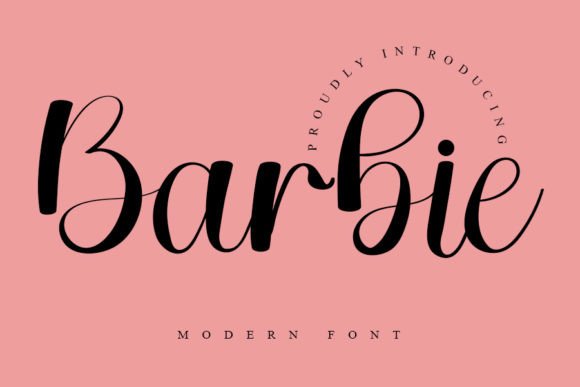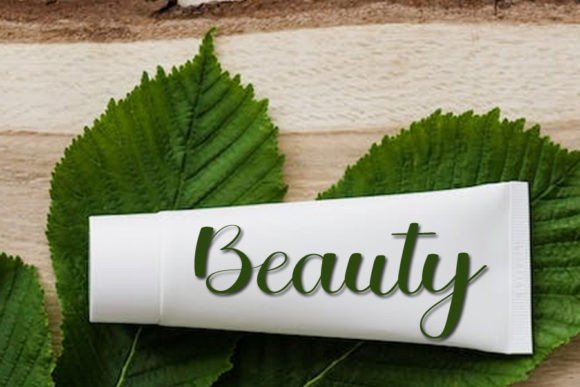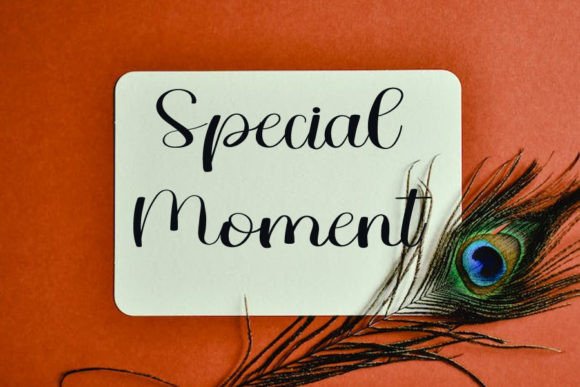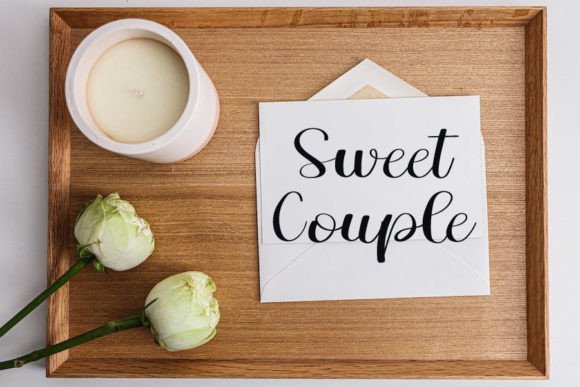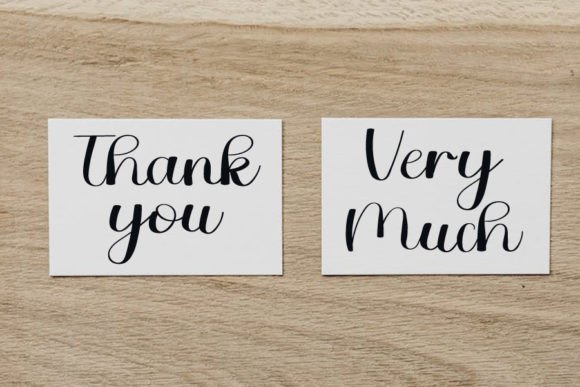
Barbie Font
About Barbie Font
**Barbie – A Timelessly Elegant Handwritten Font for Stunning Designs**
Barbie is a meticulously designed handwritten font that exudes elegance and sophistication. With its distinct and timeless style, this font is the perfect choice for your favorite projects. Here’s why Barbie is an exceptional font for creating spectacular designs:
1. **Elegant Craftsmanship:** Barbie boasts an elegant touch in every stroke, making it the ideal font to add a touch of class and refinement to your designs.
2. **Distinctive Style:** The font’s unique and distinctive style sets it apart, ensuring that your designs stand out with an air of individuality.
3. **Versatile Application:** Barbie is well-suited for a wide range of creative projects, including branding, packaging, invitations, logos, and more.
4. **Timeless Appeal:** With its timeless design, Barbie remains appealing and relevant for years to come, making it a valuable addition to your font collection.
5. **Clean and Neat:** Barbie’s clean lines and neat presentation guarantee that your text appears polished and professional in any context.
6. **Sophisticated Designs:** Use this font to craft sophisticated designs for various applications, from wedding invitations to upscale branding projects.
7. **Enhanced Logos:** Elevate your brand’s identity with Barbie, infusing your logo with elegance and charm.
8. **Inviting Typography:** Create invitations and event materials that are warm, inviting, and visually striking with Barbie’s elegant script.
9. **Branding Excellence:** Incorporate Barbie into your branding materials, such as business cards, letterheads, and promotional materials, to convey professionalism.
10. **Website Aesthetics:** Enhance your website’s aesthetics with stylish headers, banners, and typography that reflect your brand’s sophistication.
11. **Custom Packaging:** Design custom packaging that leaves a lasting impression on customers with Barbie’s elegant typeface.
12. **Personal Connection:** Add a personal touch to your projects, whether it’s composing heartfelt messages or designing unique gifts and cards.
13. **Readability:** Barbie’s readability ensures that your messages are easily understood, making it perfect for a variety of applications.
14. **Artistic Excellence:** The font’s artistic quality brings an element of artistry to your typography, enhancing the overall visual appeal of your designs.
15. **Limitless Creativity:** Barbie inspires limitless creativity, allowing you to explore countless design possibilities and bring your vision to life.
Barbie is the embodiment of elegance in handwritten fonts, making it an exceptional choice for designers and creators who appreciate timeless style and distinctive flair. Its clean, neat presentation and versatility make it an invaluable addition to your font collection, elevating your projects to new heights of sophistication and allure. Fall in love with Barbie’s distinct and timeless style and use it to create stunning designs that leave a lasting impression.